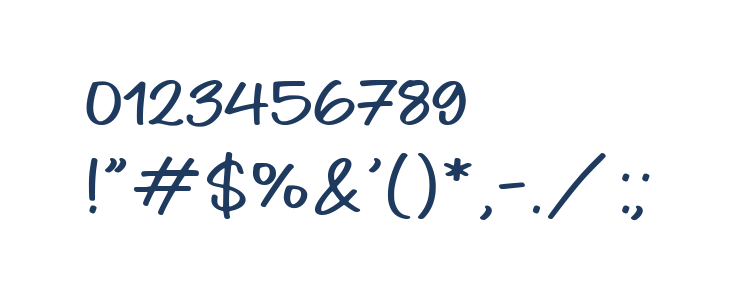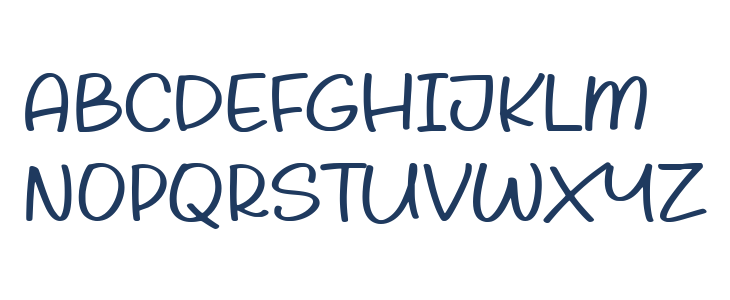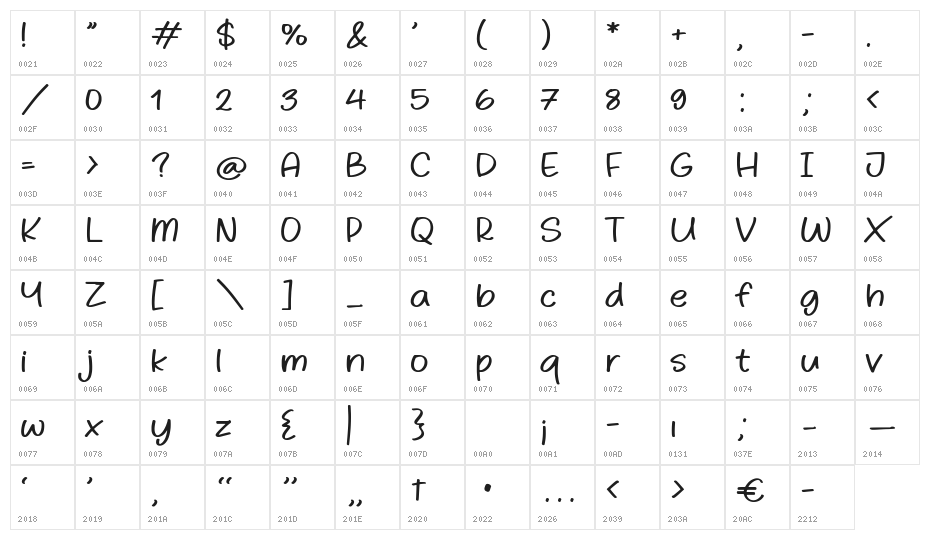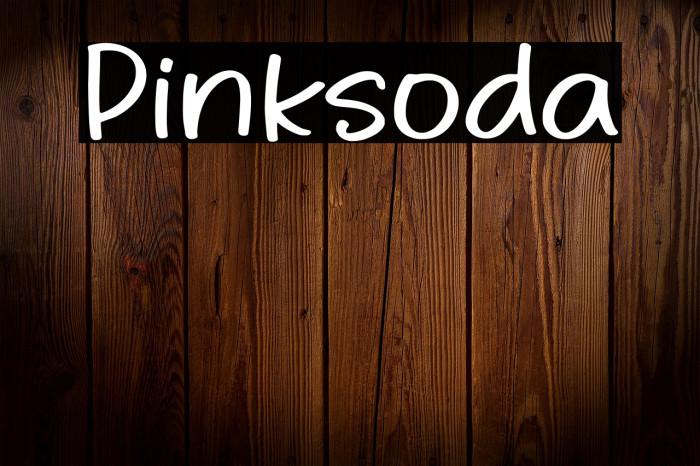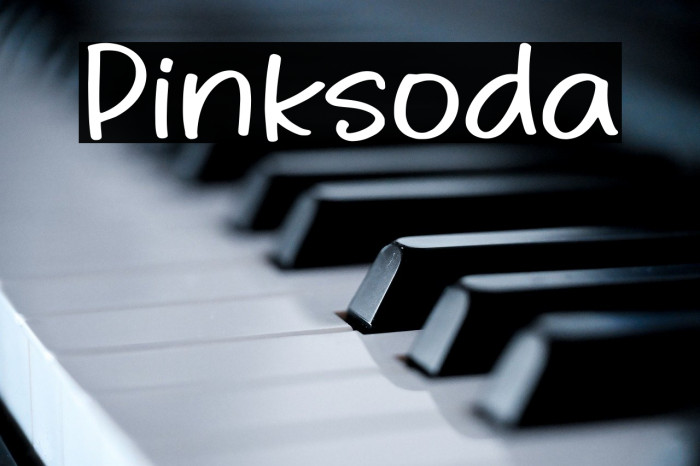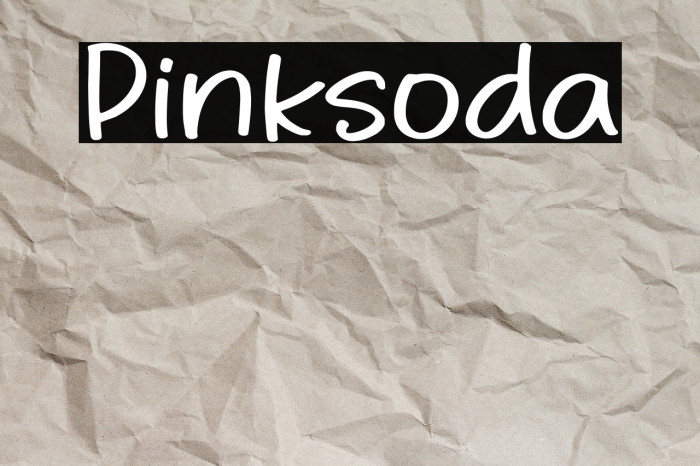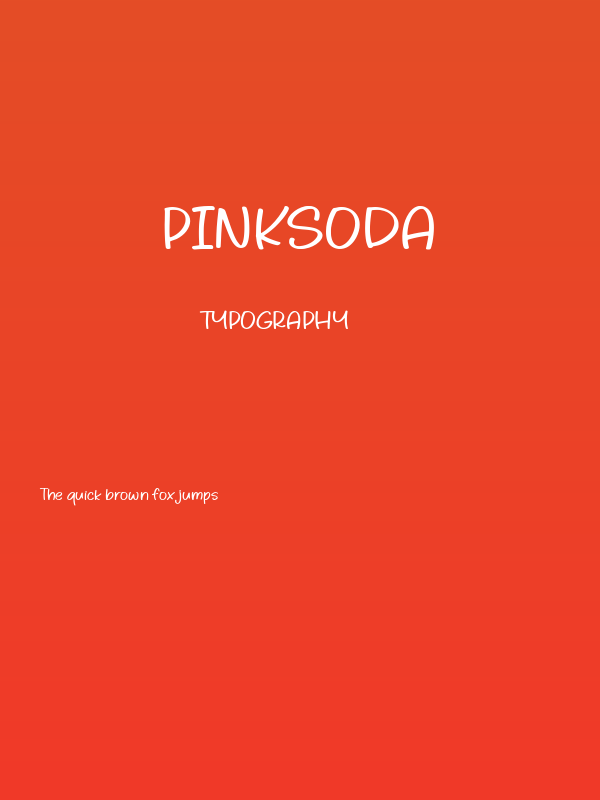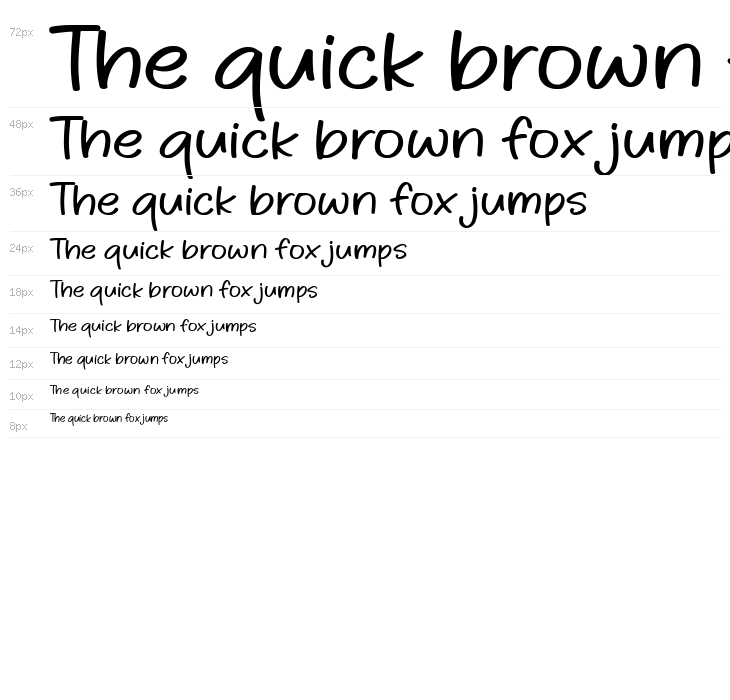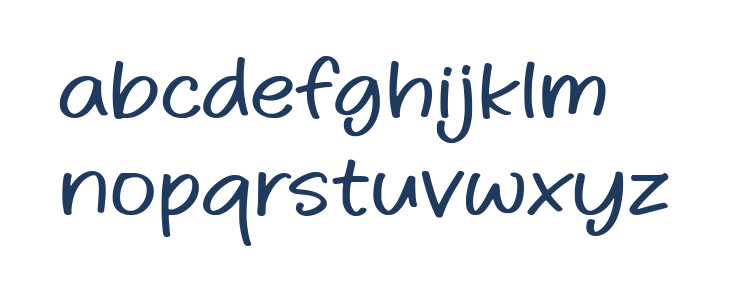
Pinksoda Font
Pinksoda Description
A playful, rounded handwritten typeface with smooth, casual strokes and consistent line thickness, giving it a friendly and approachable appearance.
| Overall Style | Playful, Casual, Friendly |
| Use Case | Headlines, Short text, Quotes, Invitations |
| Proposed Projects | Greeting cards, children's books, informal branding, social media graphics, posters. |